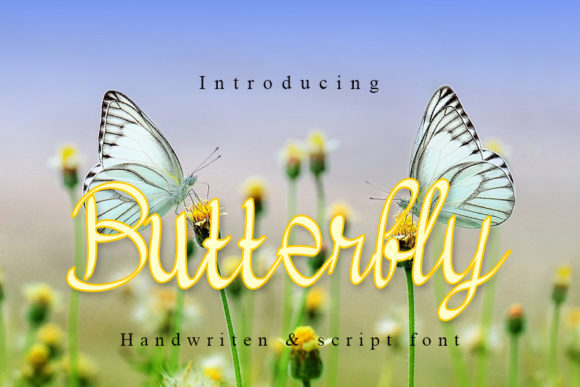
The Sweetness of Butterfly Font: A Designer’s Delight
I still remember the time I was working on a project for a client who wanted a whimsical and romantic touch. I had a clear vision of what I wanted to create, but I just couldn’t find the right font to bring it all together. That’s when I stumbled upon Butterfly Font, a sweet and cursive handwritten font that instantly captured my heart. In this article, I’ll share my experience with Butterfly Font, its features, and how to make the most of it in your designs.
I’ve had the pleasure of working with Butterfly Font on several projects, and here’s what I think:
• ✨ Sweet and playful vibe: Butterfly Font has a unique charm that adds a touch of whimsy to any design.
• ✅ Ease of use: The font is incredibly easy to read and works well in a variety of design contexts.
• 💕 Romantic feel: The cursive script and flowing lines make it perfect for projects that require a romantic or feminine touch.
However, I did notice a few quirks:
• 🤔 Limited character set: While the font has a wide range of characters, it may not have every special character or glyph you need.
• ⚠️ Not suitable for body text: Due to its cursive nature, Butterfly Font may not be the best choice for large blocks of text.
Butterfly Font was designed with love and care by a talented type designer who wanted to create a font that would bring joy and romance to designs. The font’s gentle curves and playful lines are inspired by the beauty of nature and the whimsy of butterflies.
What is Butterfly Font best used for? Butterfly Font is perfect for designs that require a sweet and romantic touch, such as wedding invitations, greeting cards, and branding materials.
Is Butterfly Font suitable for body text? No, Butterfly Font is best used for headings and titles due to its cursive nature.
Is Butterfly Font available in different languages? Butterfly Font may not be available in all languages, but it does support a range of characters and glyphs.